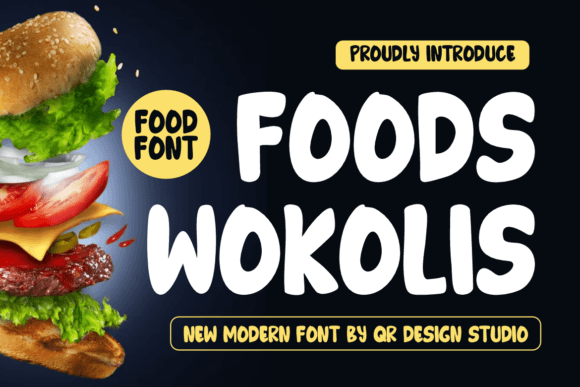
Prepare yourself to be awed by Foods Wokolis Font, a breathtaking display font that emanates boldness and authenticity. Step into a world where culinary art and typography converge, creating a symphony of visual delight. Let your creativity soar and bring life to your branding projects with this captivating font.
Foods Wokolis is the embodiment of culinary expression, a font that effortlessly captures the essence of delectable dishes and tantalizing flavors. Picture a menu adorned with its bold strokes, inviting you on a gastronomic journey. Witness your website transformed into a culinary haven, exuding an aura of authenticity that draws customers in.
This remarkable display font is not confined to the culinary realm. Its versatility knows no bounds, extending to logos that demand attention, social media posts that ignite engagement, and posters that leave a lasting impression. Picture your brand's identity reaching new heights of recognition, thanks to Foods Wokolis's commanding presence.
Unleash the tattoo artist within you and let your designs take on a life of their own. With Foods Wokolis, your lettering will transcend the ordinary, becoming a timeless work of art etched in ink. From intricate symbols to powerful statements, this font empowers you to express yourself in a way that's both powerful and deeply personal.
Foods Wokolis is not just a font; it's an adventure, an opportunity to embark on a creative odyssey where culinary inspiration meets typographic excellence. Its bold strokes and authentic charm will leave an indelible mark on your designs, ensuring that your message is conveyed with impact and originality.